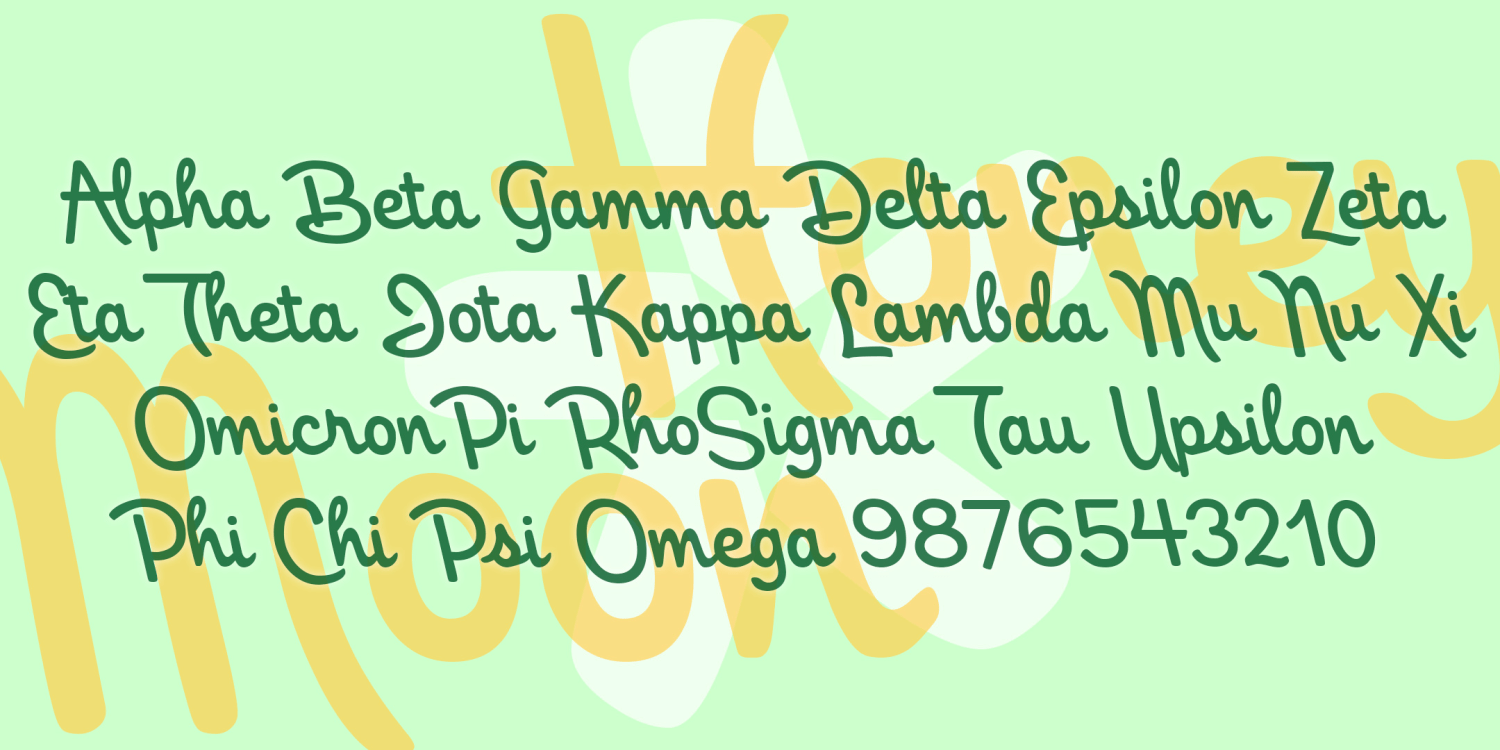
Honeymoon
HONEYMOON is a retro, backhand script with a hand-written feel. It was inspired by the classic logo of the Holiday Inn hotel chain. Uniform weight, almost completely linking. Italicized it becomes a vertical script.
The Honeymoon font family includes 217 glyphs.